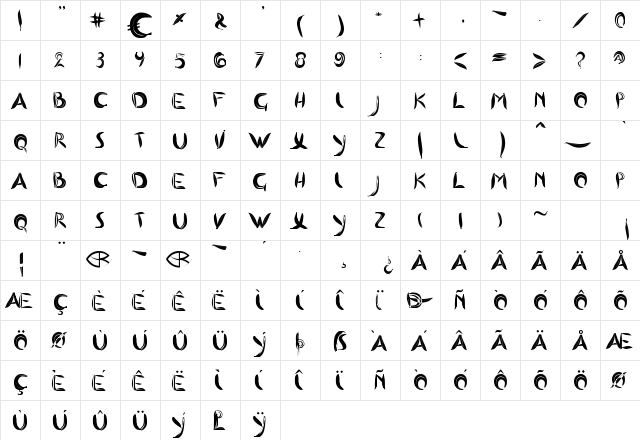
BA naan Regular
Design Context for BA naan Typeface
BA naan is a composed and adaptable typeface that performs quietly and consistently across a wide range of design contexts.